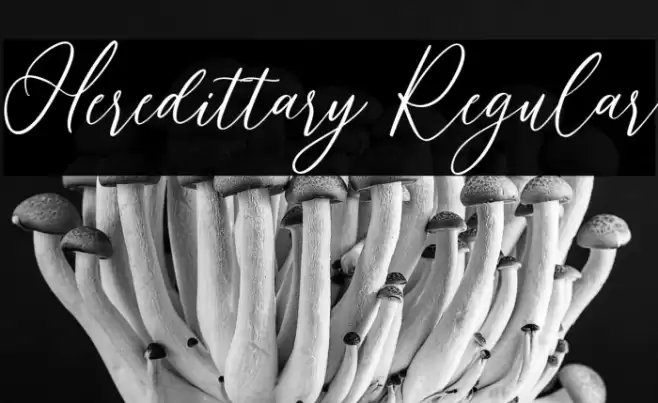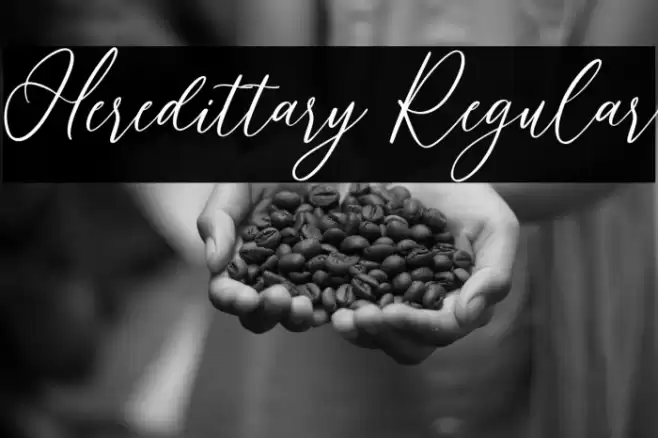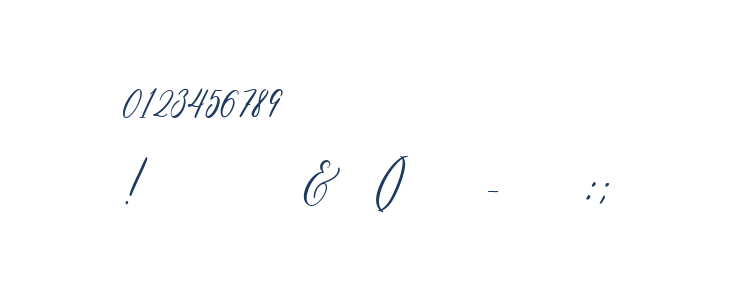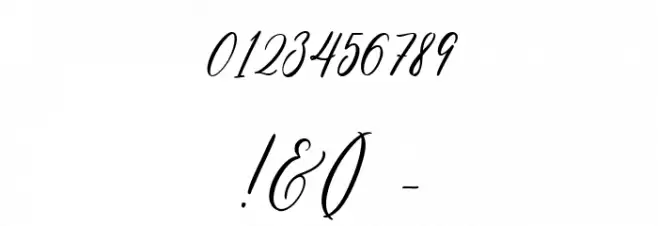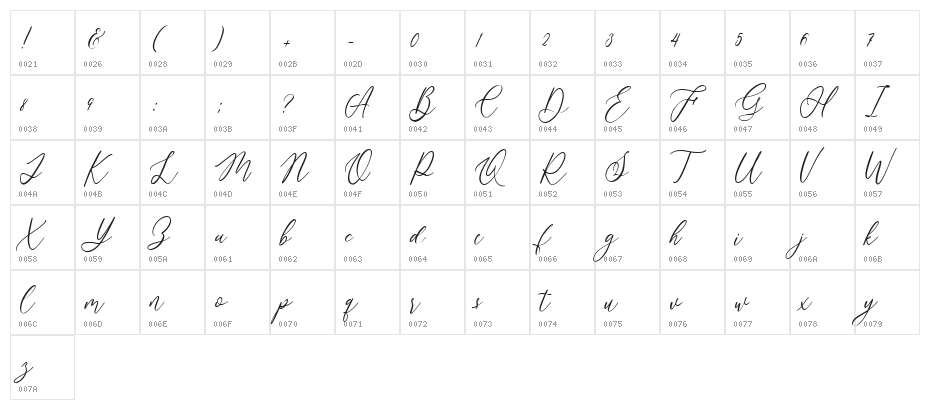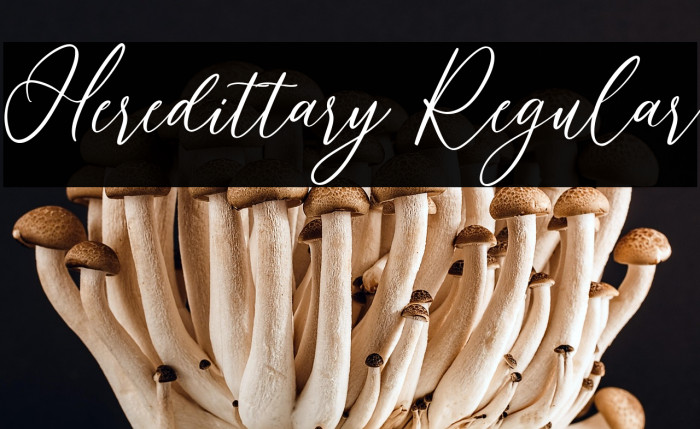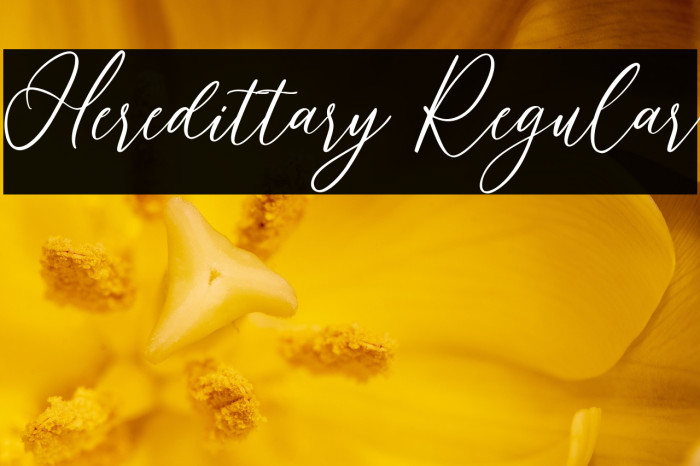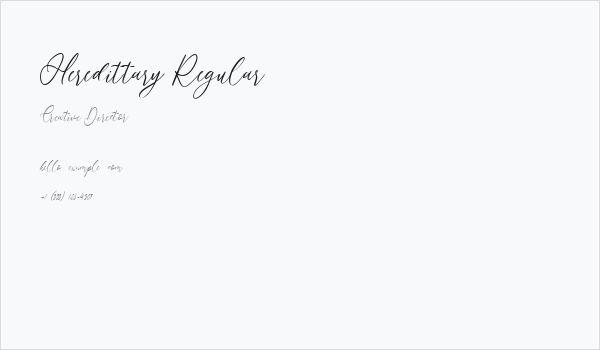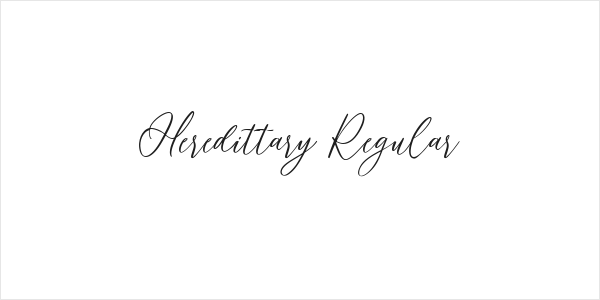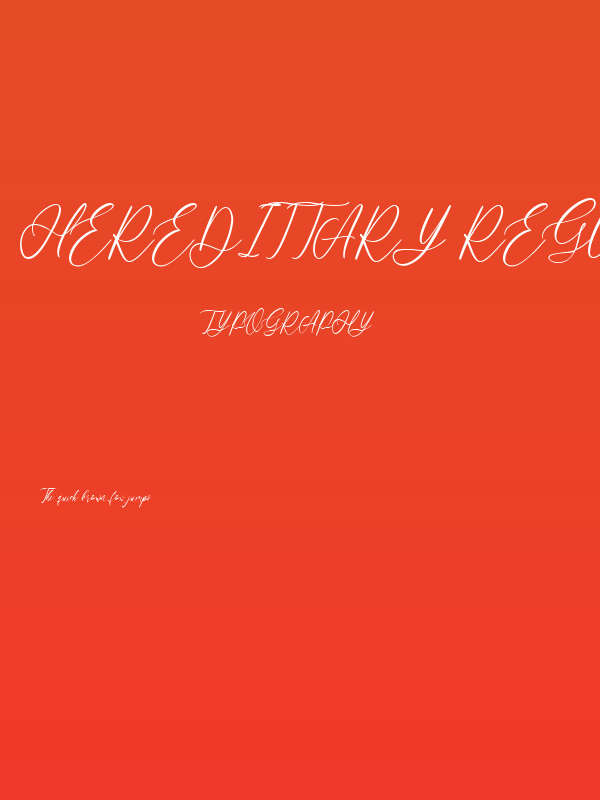
Heredittary Regular Font
Heredittary Regular Description
This font features an elegant and flowing script style, characterized by its smooth, cursive lines and graceful curves. The uppercase letters are particularly ornate, with sweeping ascenders and descenders that give a sense of movement and fluidity. The lowercase letters maintain a consistent style, complementing the uppercase with their own subtle flourishes. The numerals and special characters are designed to match the overall aesthetic, ensuring a cohesive look across all text. This font is ideal for projects that require a touch of sophistication and elegance, such as wedding invitations, formal event programs, or high-end branding materials.
An elegant, flowing script font with graceful curves and ornate details from Regular fonts.
- Proposed Projects: Ideal for wedding invitations, formal event programs, luxury branding, and elegant stationery.
- Overall Style: Elegant
- Use Case: Logos, Invitations, Decorative text